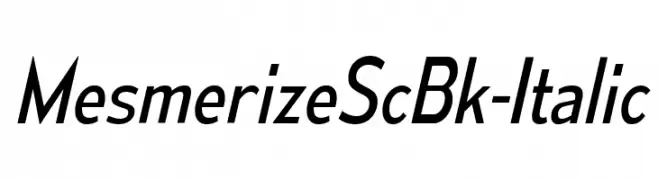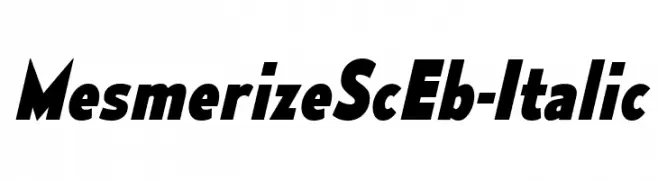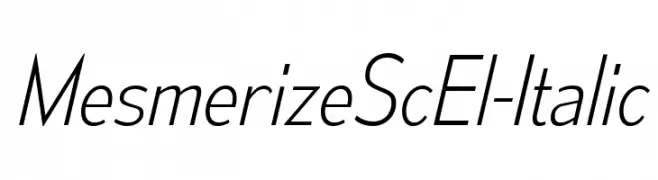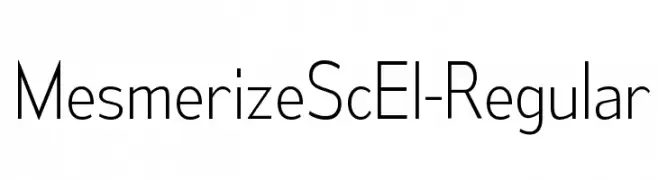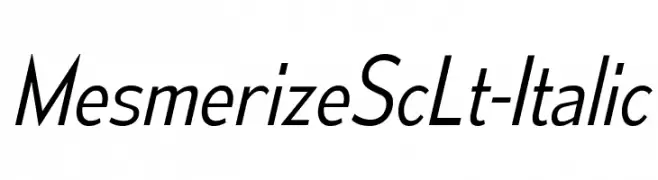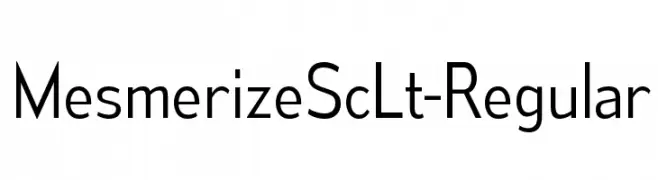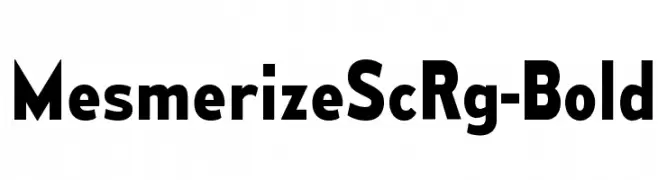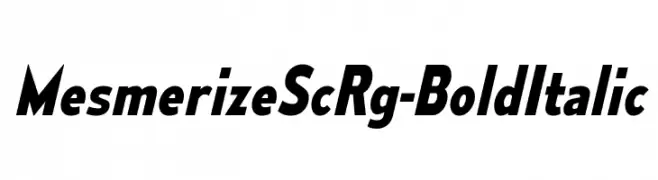
A sleek, modern italic font with smooth curves and a slightly condensed style.
A modern sans-serif font with clean lines and excellent readability.
A bold, italic font with a dynamic and energetic style.
A bold, geometric typeface with a modern and impactful style.
A modern, italic font with sleek, elongated characters and consistent stroke width.
A modern, geometric sans-serif font with clean lines and balanced spacing.
A sleek, modern italic font with consistent stroke width and a dynamic appearance.
A modern sans-serif font with a clean, streamlined design and balanced character spacing.
A bold, modern font with clean, geometric lines and excellent readability.
A bold, italicized font with strong, dynamic strokes and a confident presence.